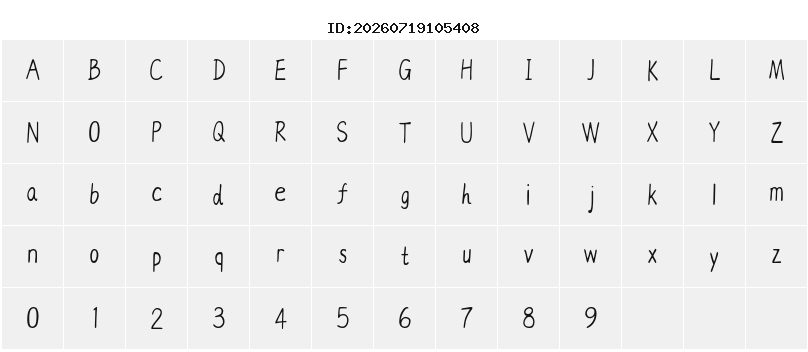
YEFONTWangChunFengKaiShu Preview
• Font Name: YEFONTWangChunFengKaiShu
• Font ID: 1.000;YEFO;YEFONTWangChunFengKaiShu-Regular
• Full Font Name: 也字工廠望春風楷書 標準
• PostScript Name: YEFONTWangChunFengKaiShu-Regular
• Character Count: 7143
• Manufacturer: 也字工厂
About YEFONTWangChunFengKaiShu.TTF
YEFONTWangChunFengKaiShu.TTF is a modern, elegant sans-serif font designed for ultimate readability and visual harmony. Perfect for branding, headlines, web design, and print materials.